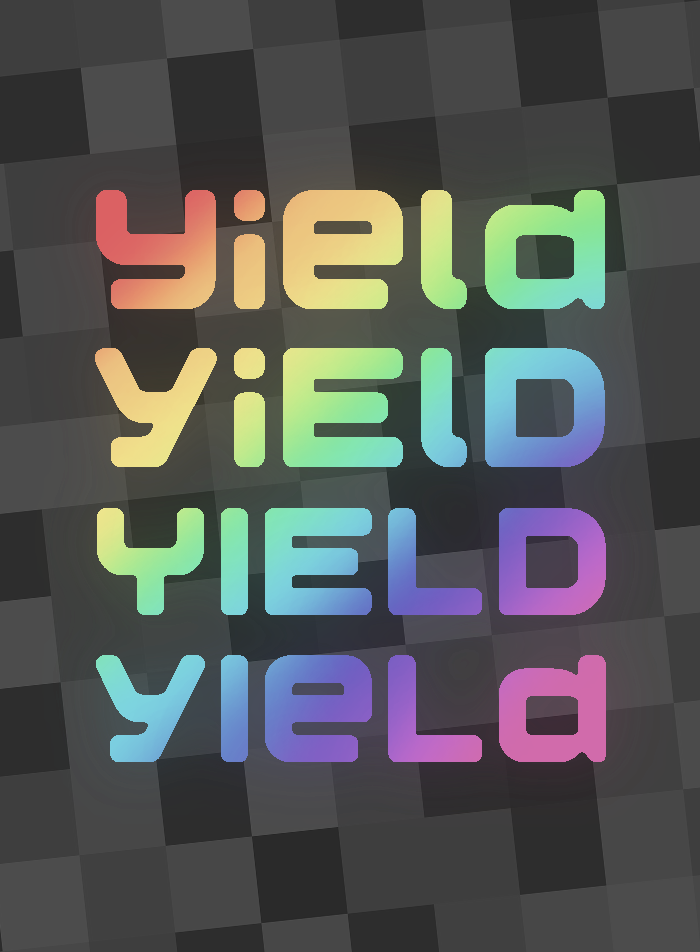
A typeface inspired by zeeglo eYe/FS and done with 2x2 filters.
Alt Y in asterisk (*).
Also may do cyrillic somewhere in the future (hopefully) (probably) (not really sure)
Nice soft look! Not easy to do.
I would rotate the @ 90° clockwise.
Nice interpretation. I'm glad one of my fonts was the trigger.
@V. Sarela (Yautja) thanks for the suggestion! is the new @ good?
@'s good!
This deserves a special mention IMO !
Well crafted rounded features, with playful tech-style letter concept. Nicely done